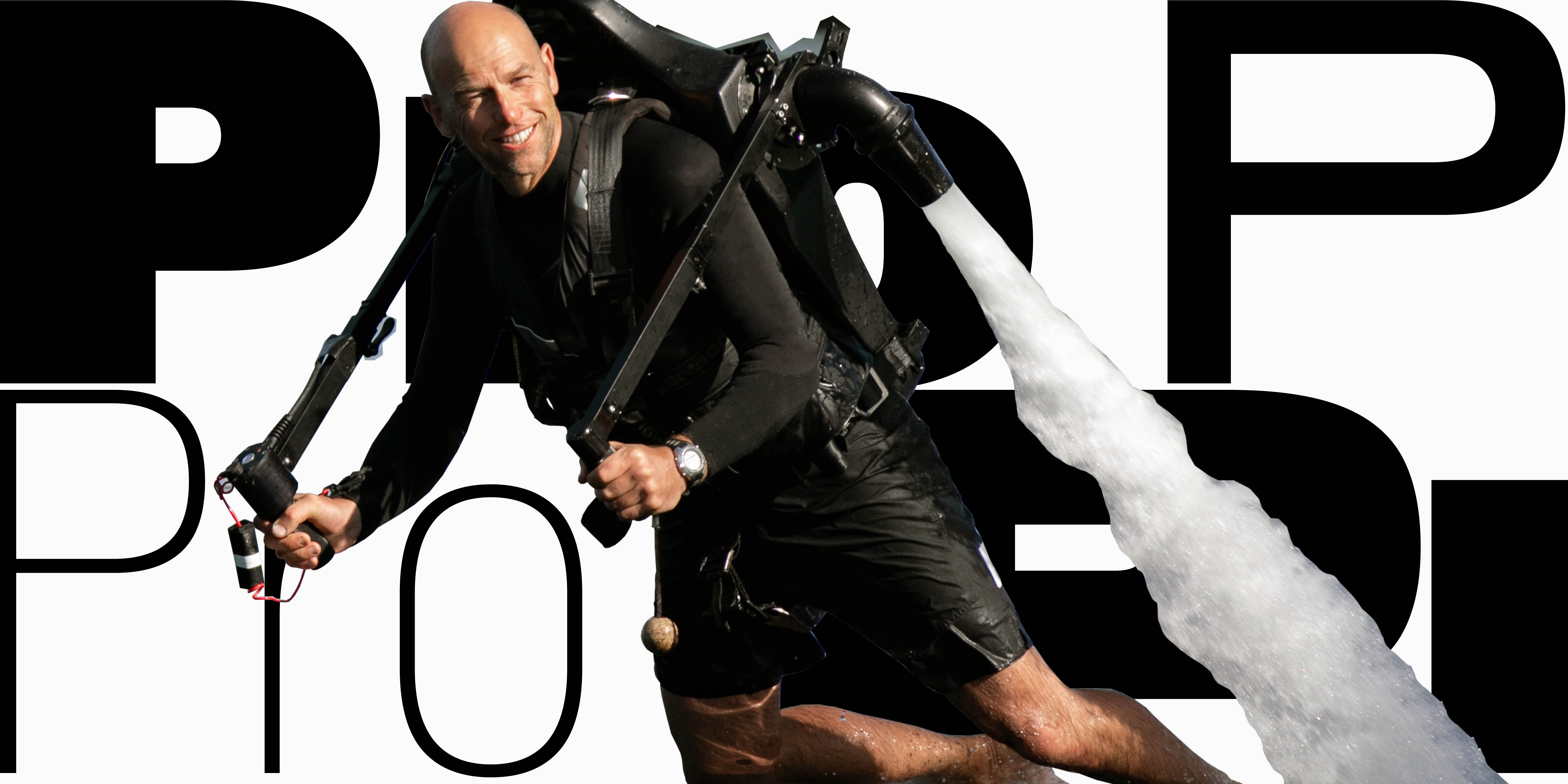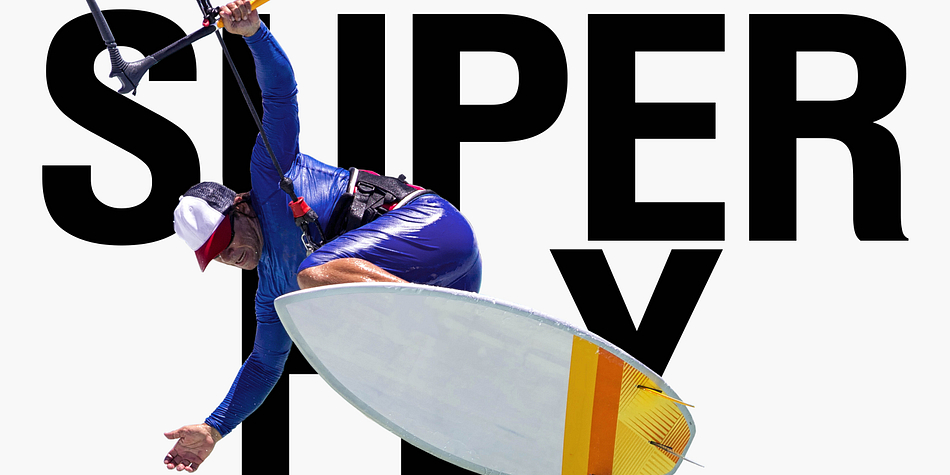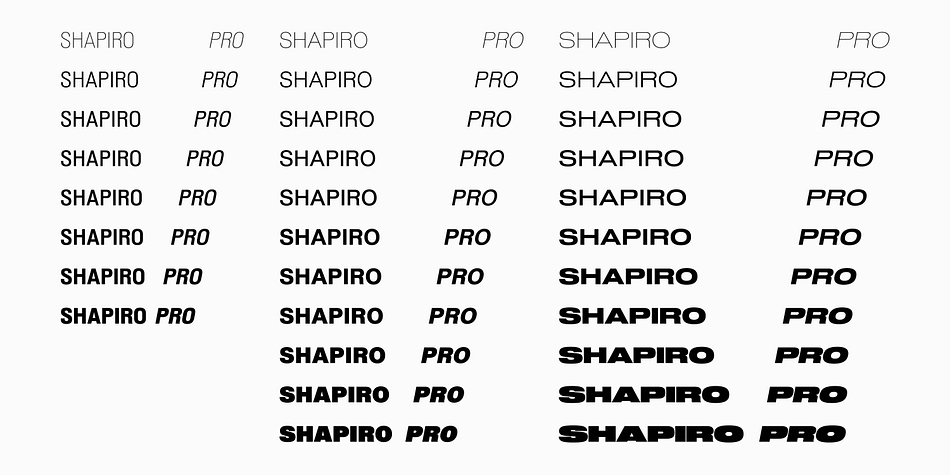
Designed by Oliver Jeschke, Shapiro Pro is a sans serif font family. This typeface has seventy-four styles and was published by OGJ Type Design.
A modern grotesque with 74 cuts by OGJ Type Design. Workmanship the best – light to black.